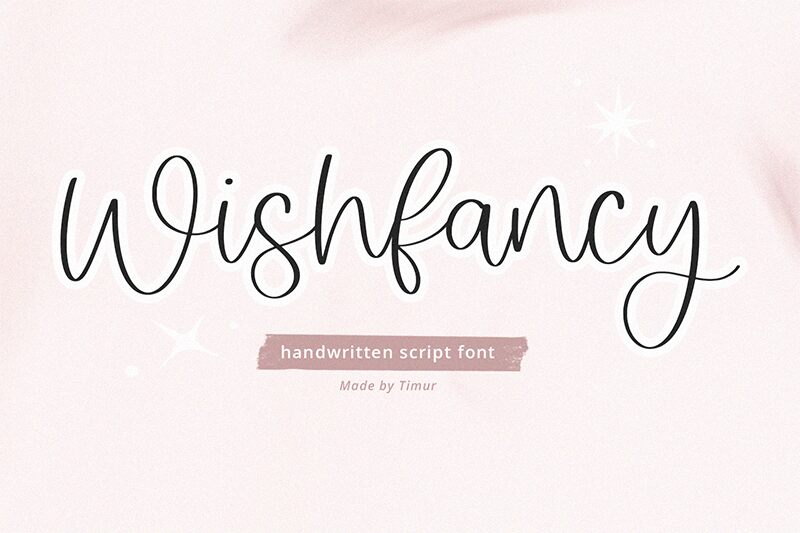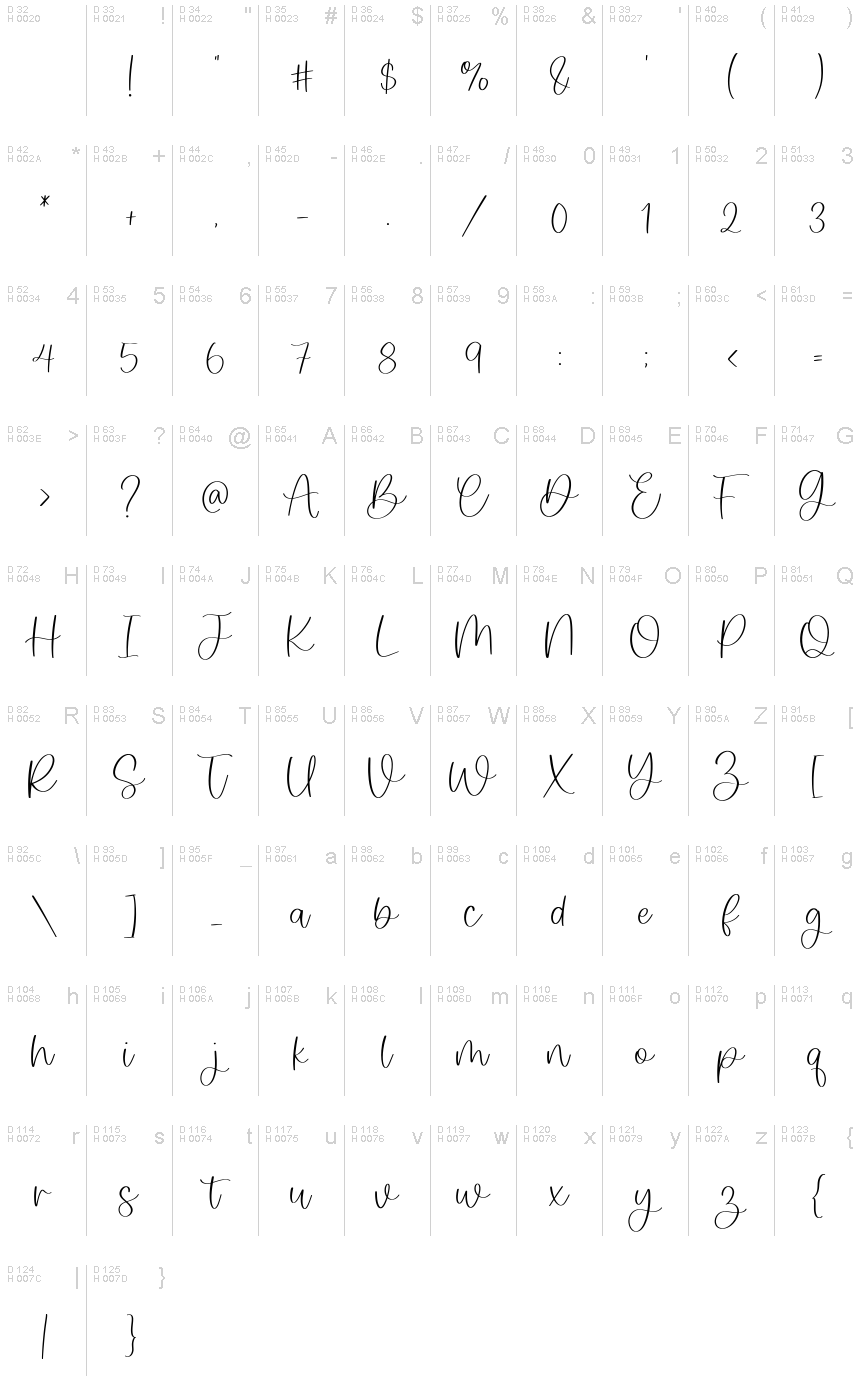
Wishfancy
Wishfancy, designed by Timur Type, dances across the page with the elegance of a handwritten note. Its delicate strokes and fluid connections convey a personal touch, infusing each character with a sense of warmth and intimacy. The font's light texture adds to its charm, creating an airy and graceful aesthetic that seems to float effortlessly in any visual composition.
The versatility of Wishfancy makes it an excellent choice for branding, wedding invitations, and personalized stationery. It brings a bespoke feel to logos and packaging, elevating products with its sophisticated flair. Whether gracing the cover of a novel or adding character to social media graphics, this font is sure to leave an impression with its unique blend of casual sophistication and artistic style.